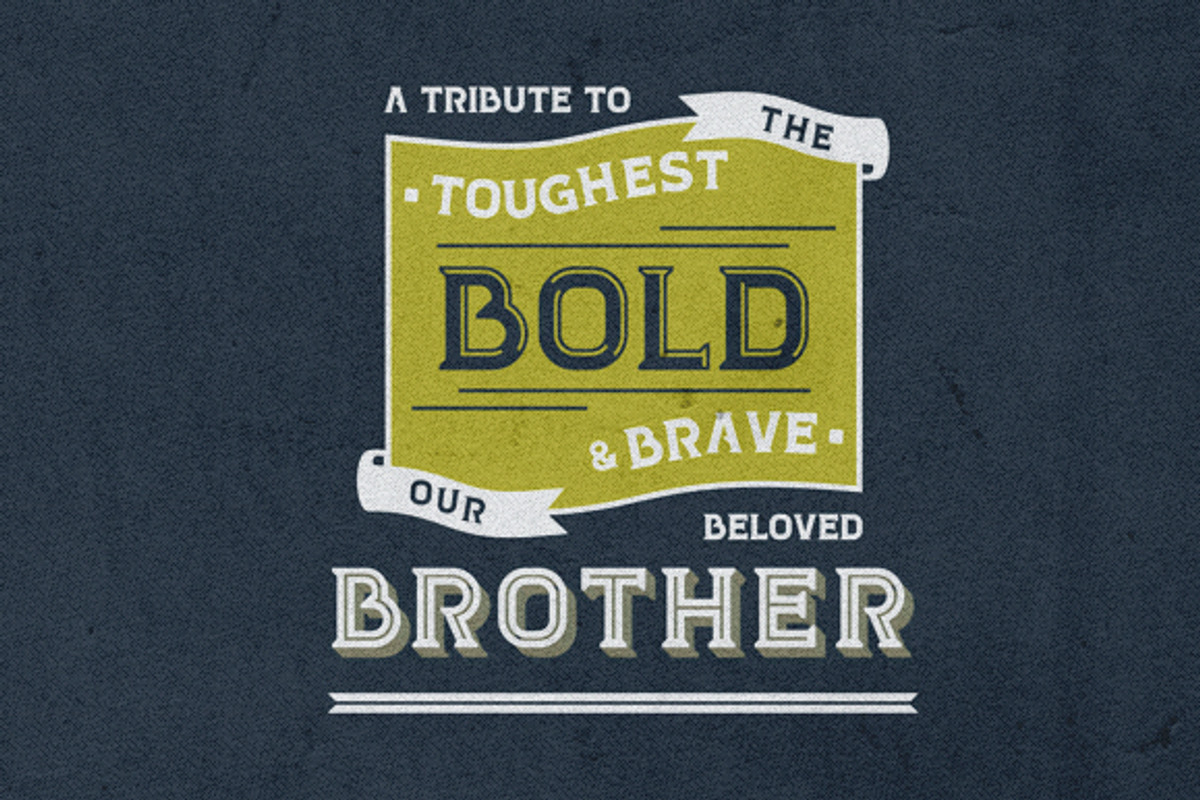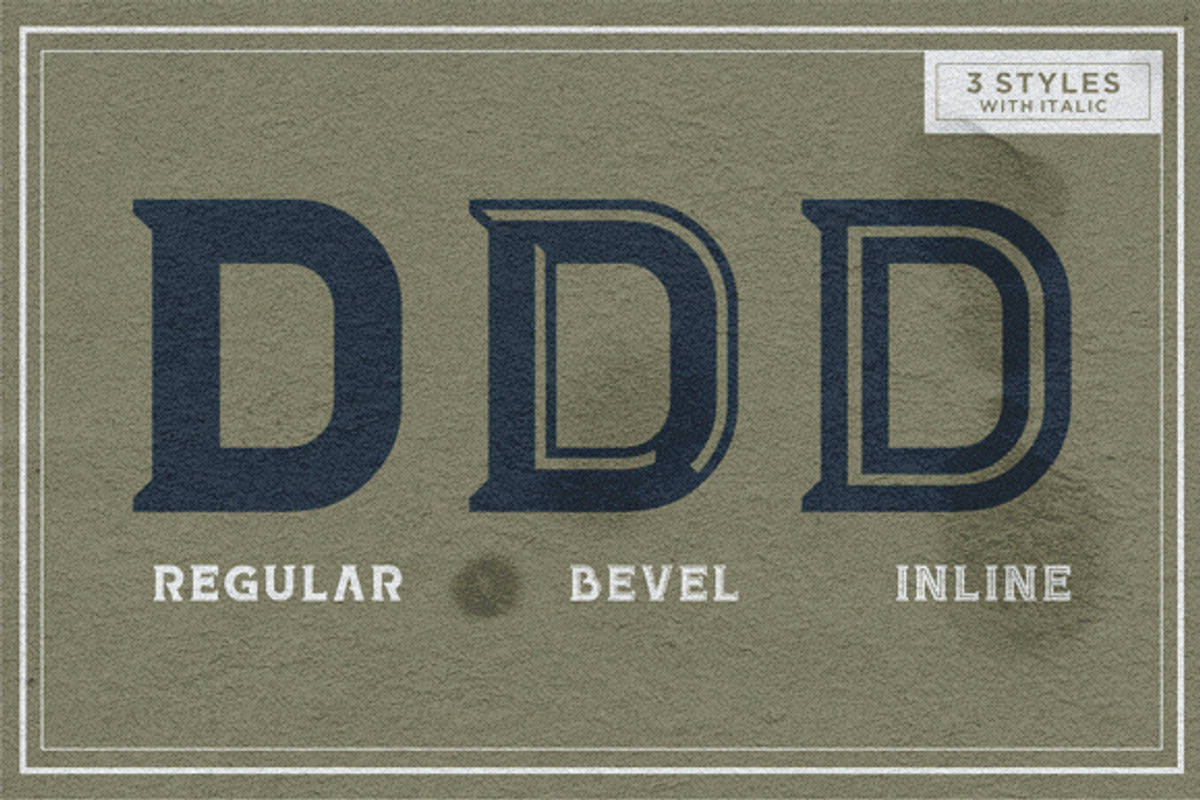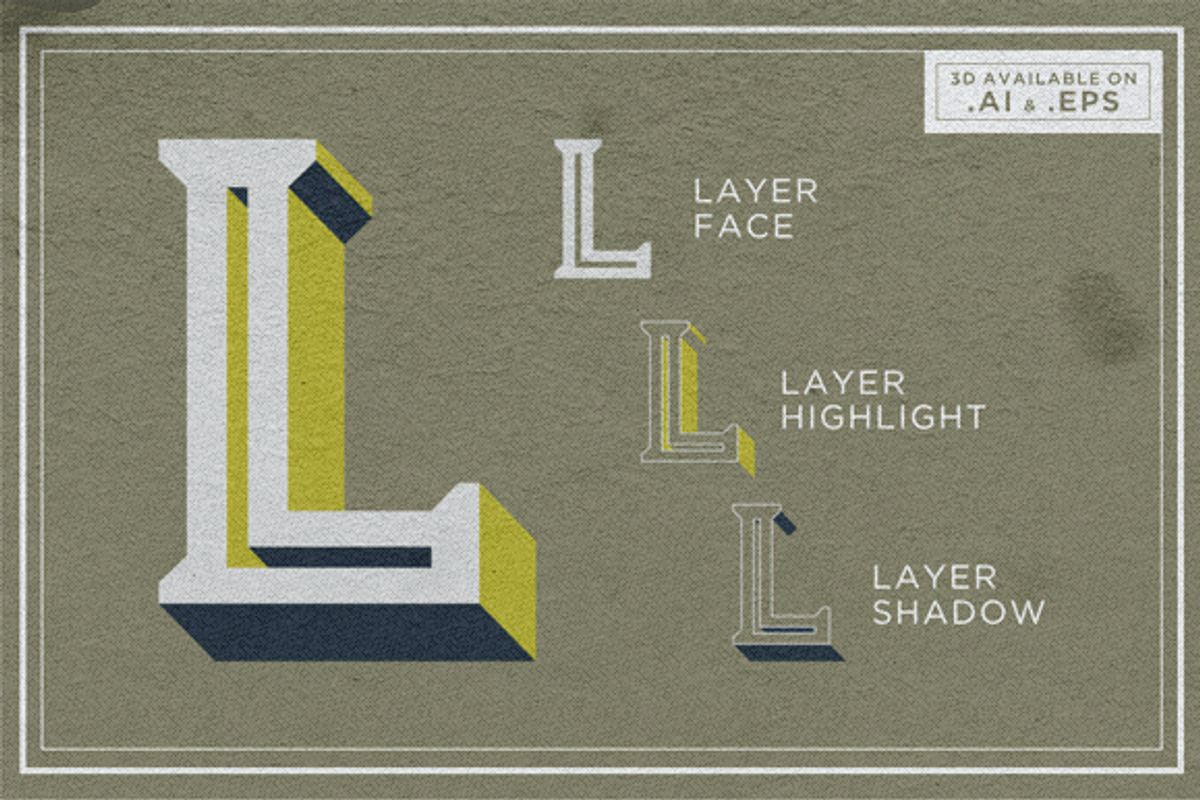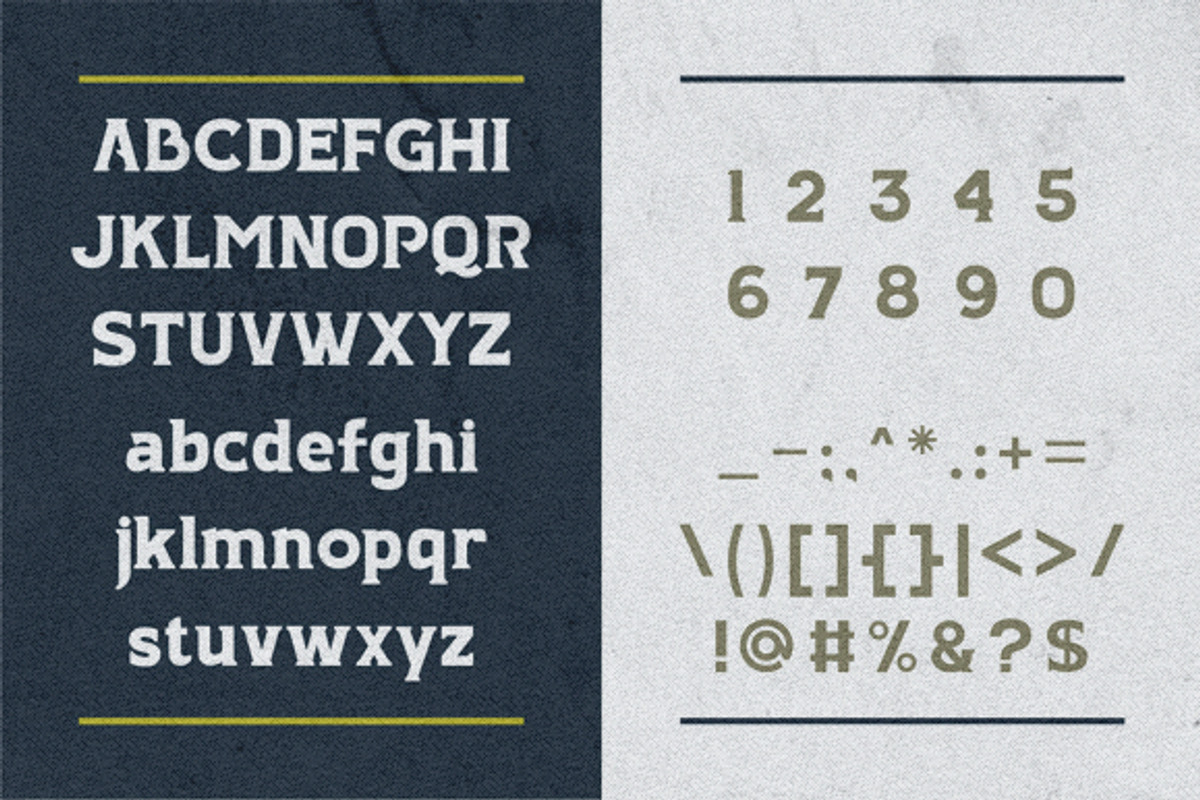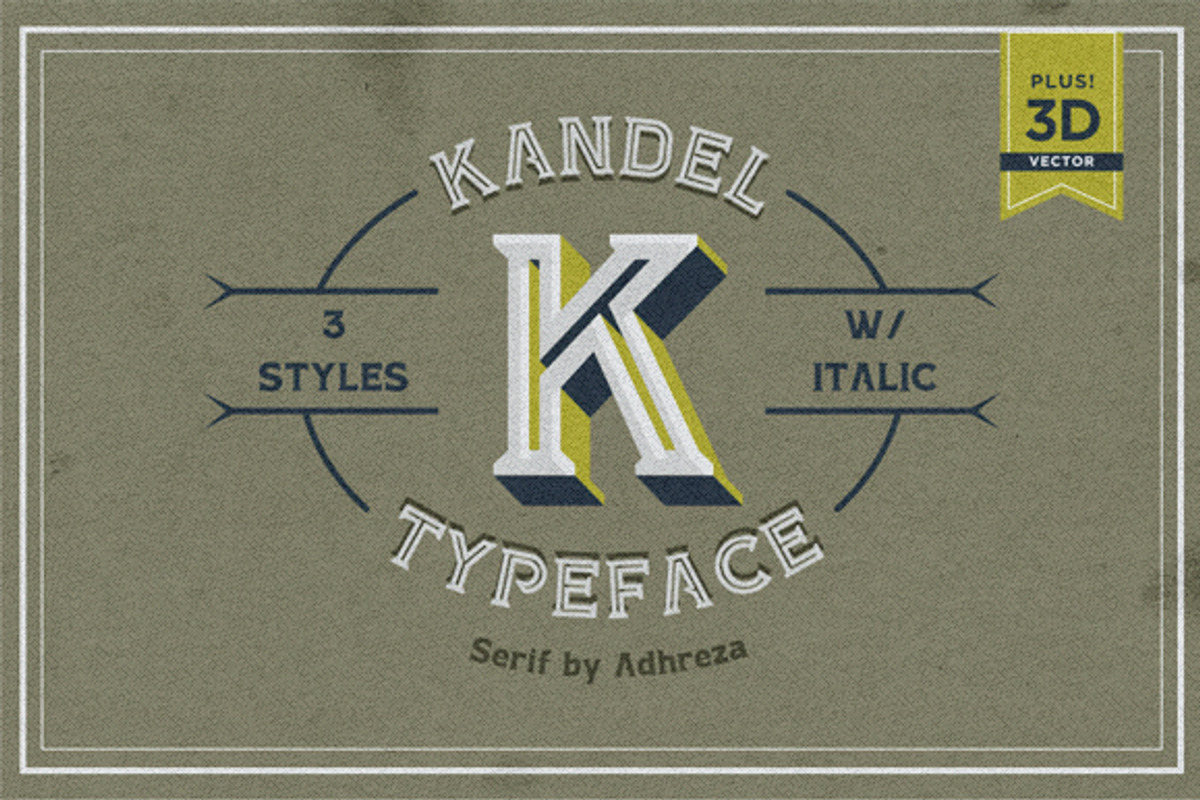
Kandel Typeface
Kandel Typeface by Adhreza is a font selected for branding, posters, packaging, typography.
- Kandel Regular
- Kandel Inline Regular
- Kandel Inline Italic
- Kandel Italic
- Kandel Bevel Regular
- Kandel Bevel Italic
Why Kandel Typeface is worth a look
Kandel Typeface by Adhreza fits naturally into Branding, posters, packaging, typography.